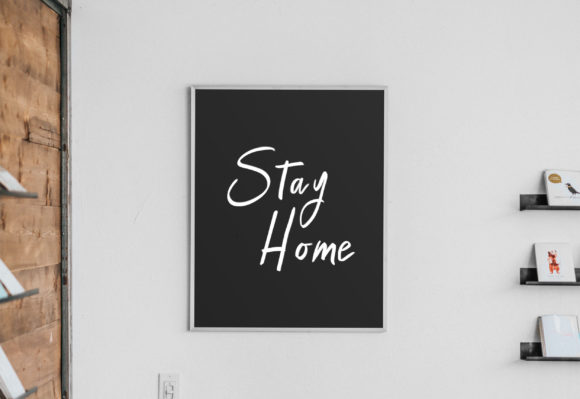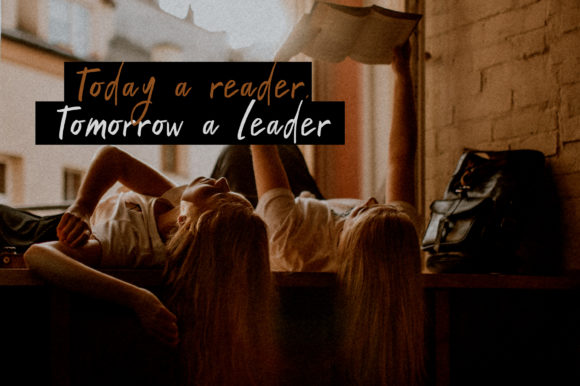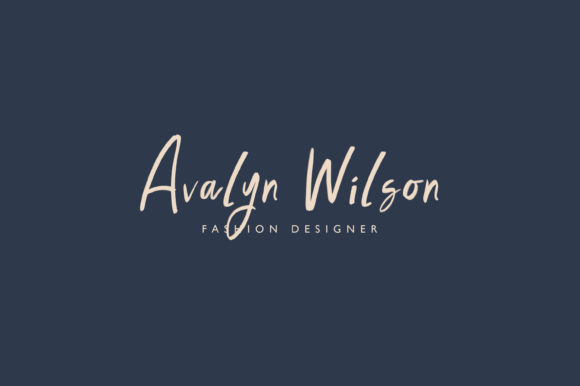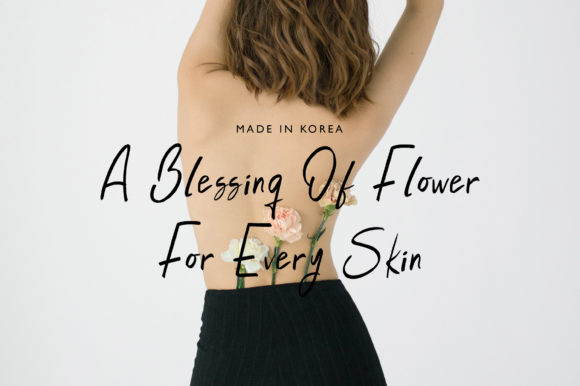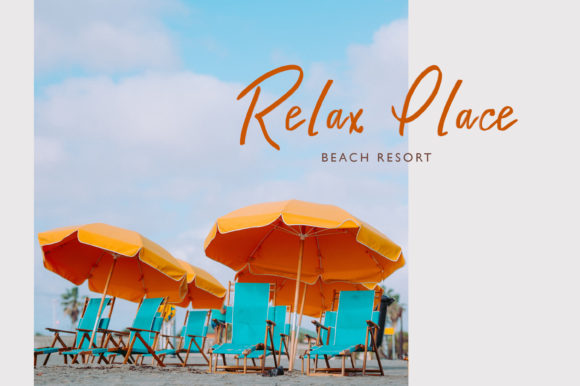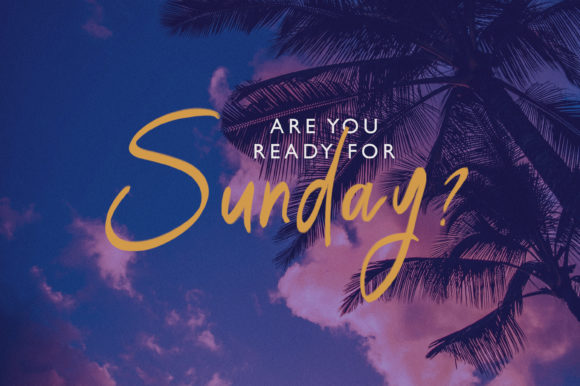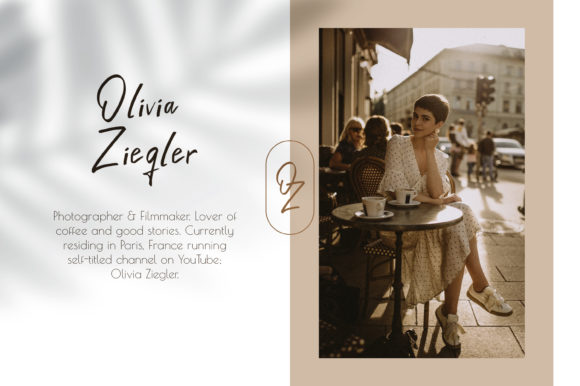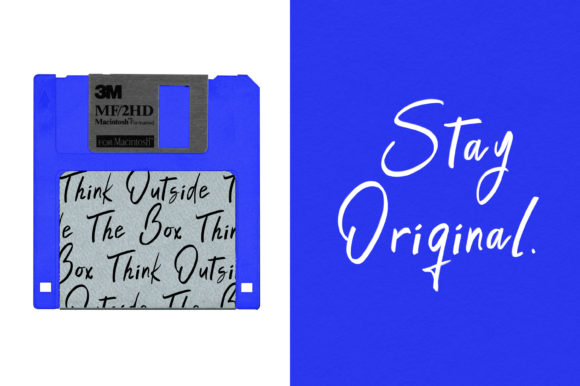
Space Font
About Space Font
Space is a cute and casual script font with an incredibly friendly feel. Whether you’re looking for fonts for Instagram or calligraphy scripts for DIY projects, this font will turn any creative idea into a true piece of art!